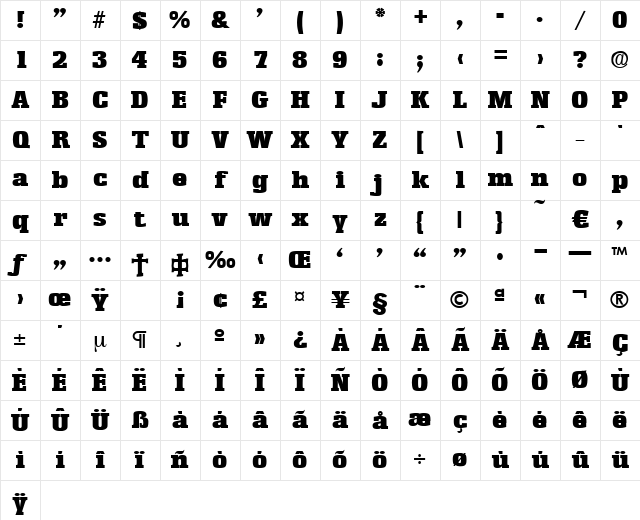
Enschede-Heavy Regular
Design Context for Enschede-Heavy
Enschede-Heavy is a composed and adaptable typeface that performs quietly and consistently across a wide range of design contexts.
Pro Tip: Use Enschede-Heavy in both headline and body roles to test its range before committing to a single application.